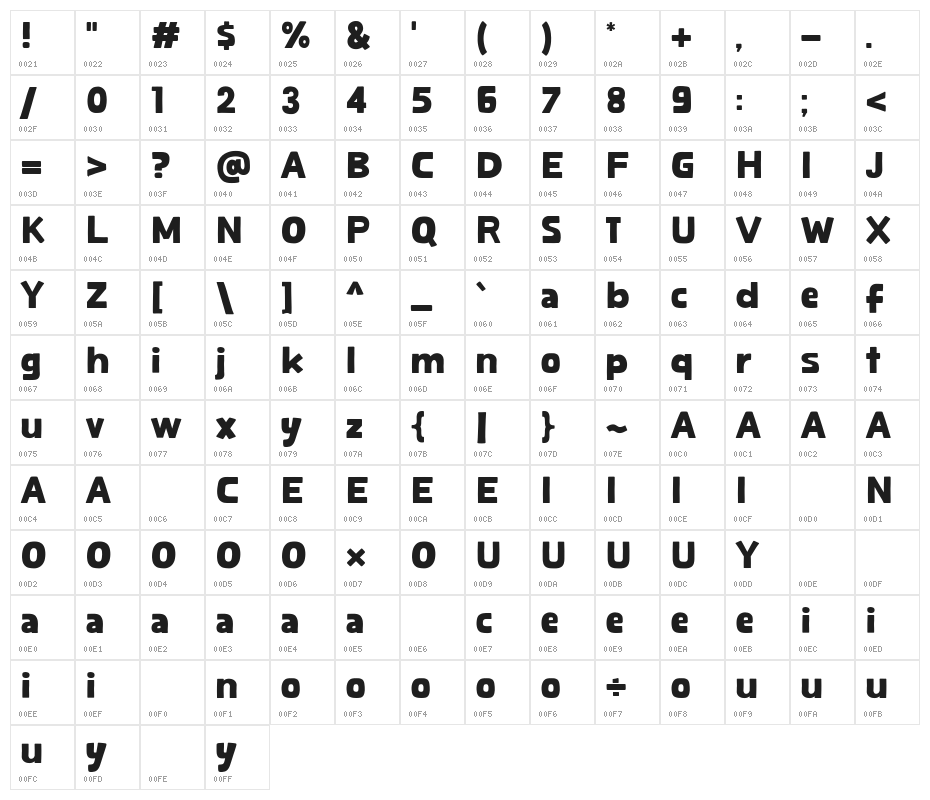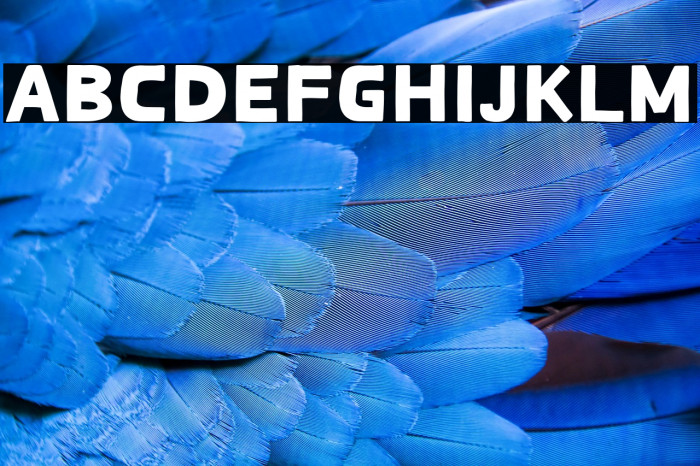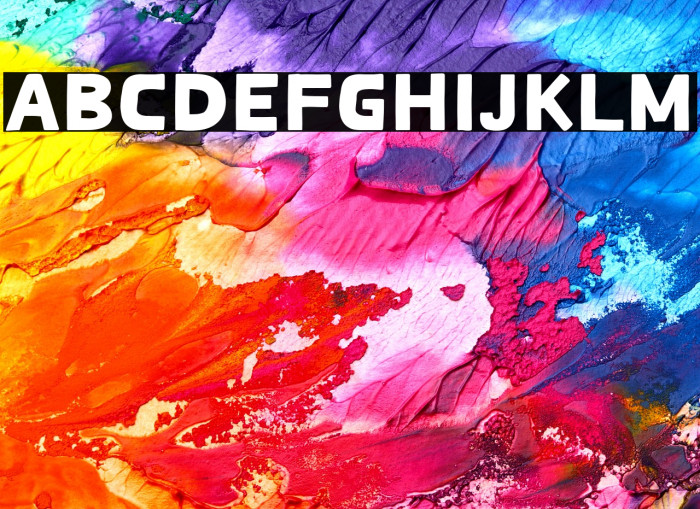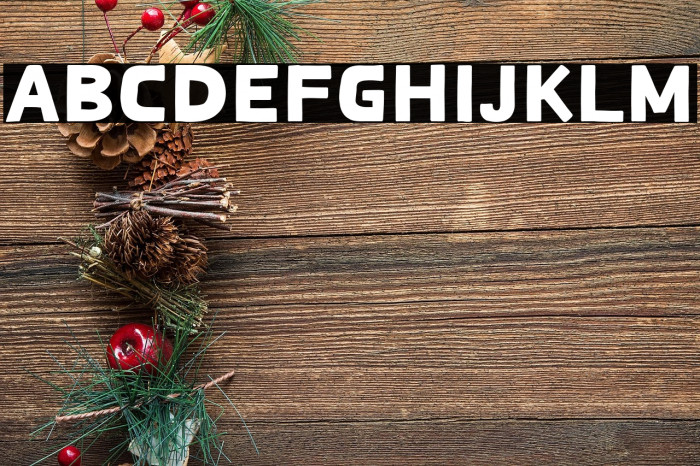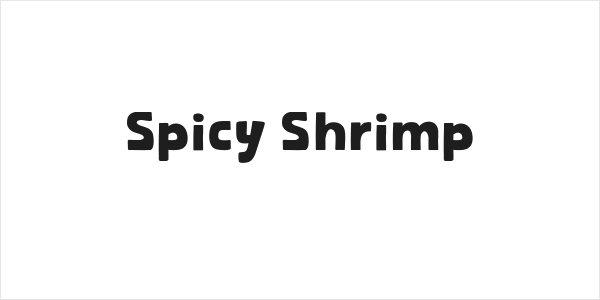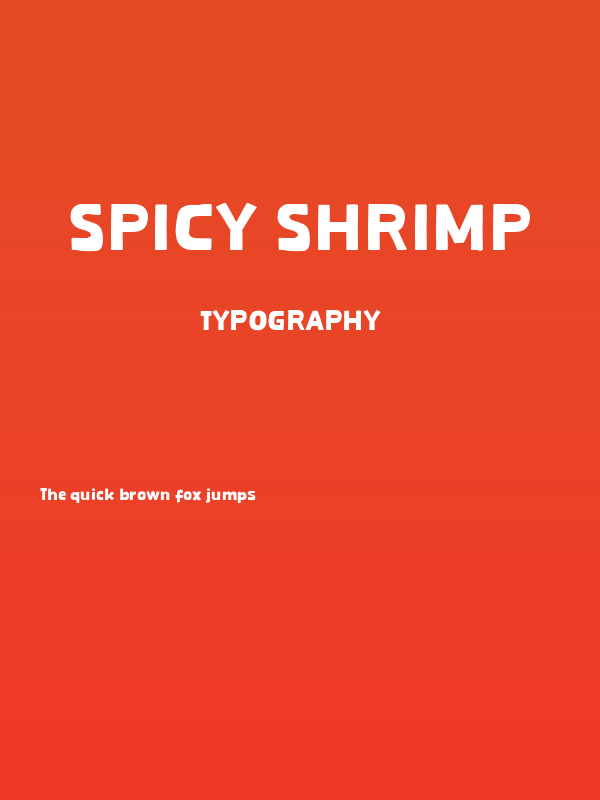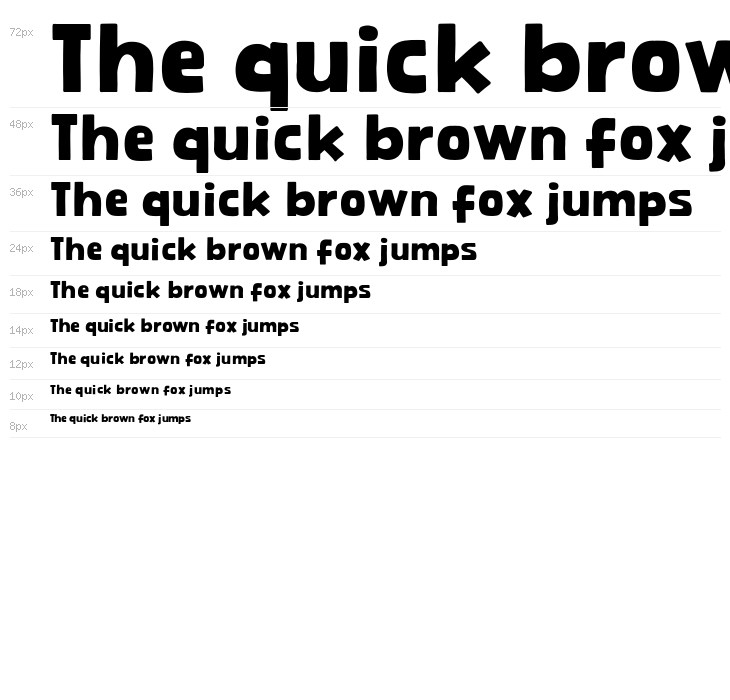
Spicy Shrimp Font
Spicy Shrimp Description
This font features a bold and playful design with rounded edges and a slightly condensed appearance. The characters are uniform in weight, providing a consistent and cohesive look. The uppercase letters are strong and assertive, while the lowercase letters maintain a friendly and approachable feel. The numerals are clear and easy to read, making them suitable for various applications. Special characters are well-integrated, adding versatility to the font. Overall, this font exudes a modern and energetic vibe, perfect for capturing attention.
| Proposed Projects | Ideal for branding, advertising, children's books, and playful design projects. |